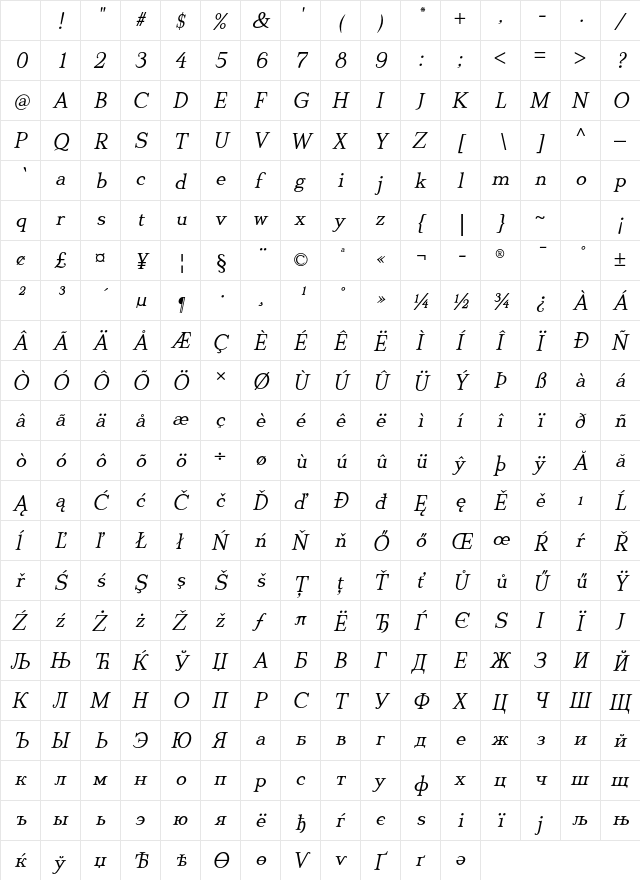
DionisiiOTF is a composed and adaptable typeface that performs quietly and consistently across a wide range of design contexts. The slanted form adds forward momentum and visual energy.
Pro Tip: Use DionisiiOTF for emphasis, pull quotes, and subheadings where its slanted energy can add rhythm to the layout.